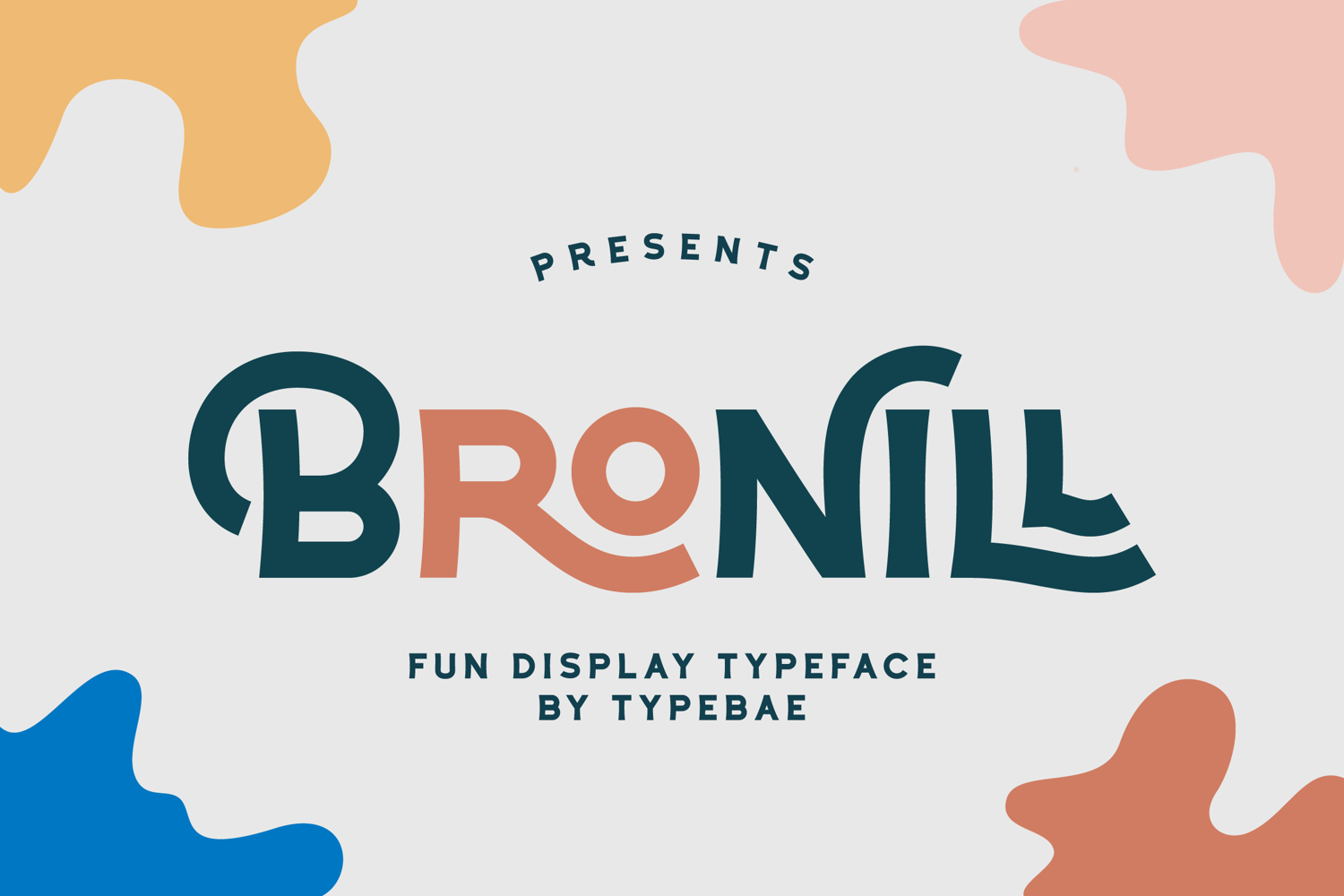
Bronill Playful Display Typeface
Bronill
Bronill is a lively and fun display font with unique ligatures and quirky letterforms. Perfect for playful designs, branding, and creative projects, it adds a cheerful touch to any design. Whether for logos, posters, or children's products, Bronill brings joy and personality to your work!
• All Caps, Numeral & Punctuation
• Stylistic Alternates & Ligatures